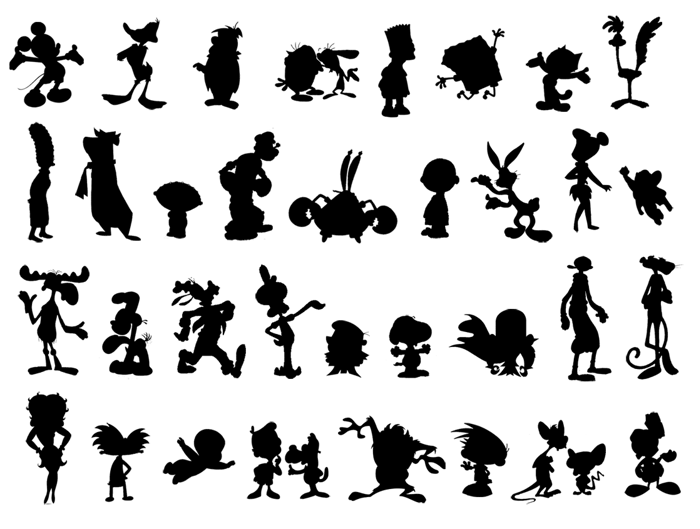
Cartoon Silhouettes Font
13 years agoNo Invader Zim? ;o
3 years agoWhy Does This Font Have SpongeBob Squarepants
1 year agoI couldn't believe there's Hey Arnold! in the font! 😮